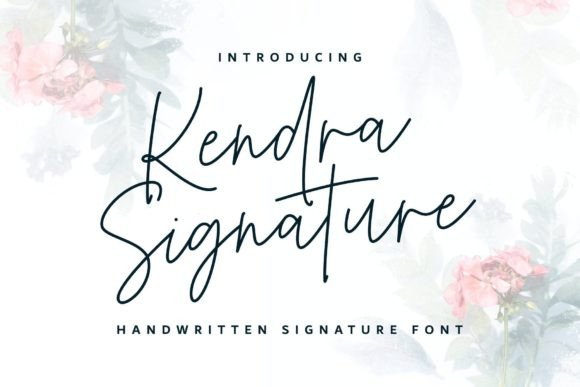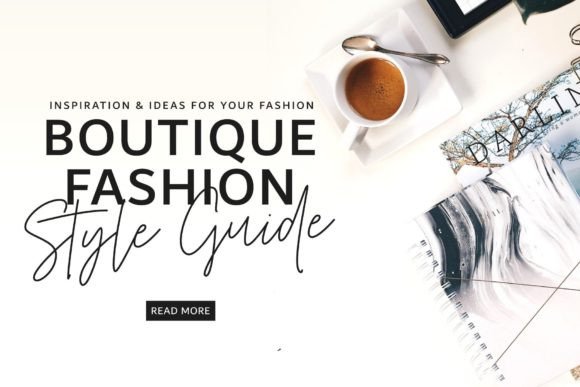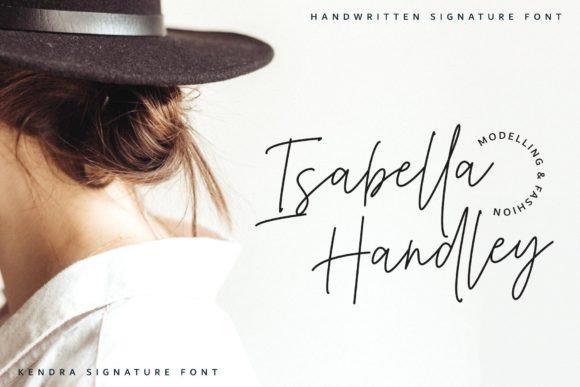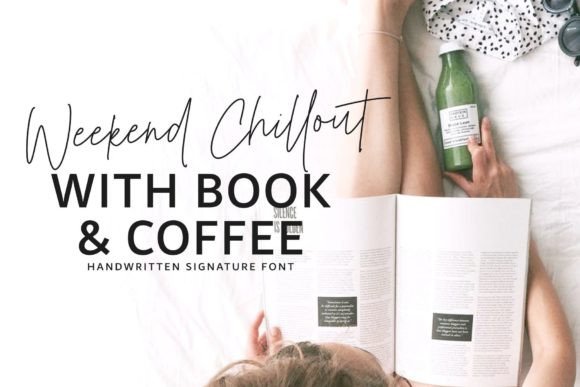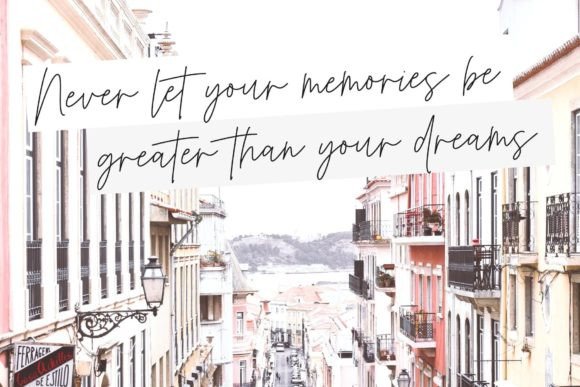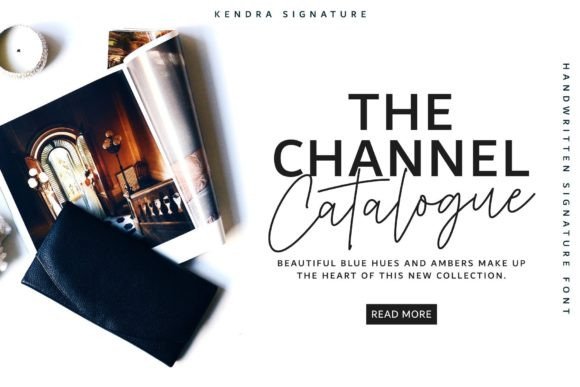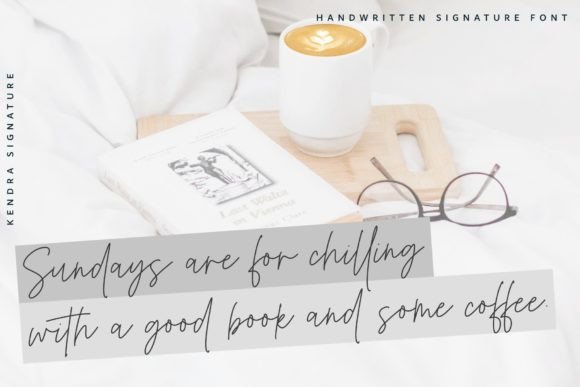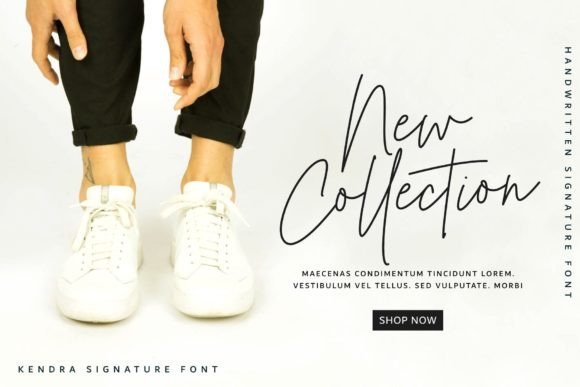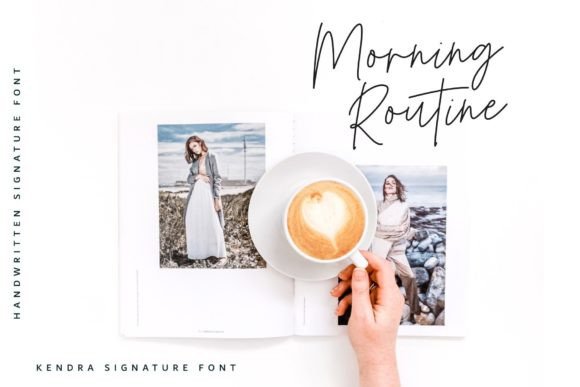
Kendra Signature Font
About Kendra Signature Font
Introducing Kendra Signature, a modern signature script font with a monoline design that adds a touch of sophistication to your designs. This versatile font is a perfect choice for a variety of applications, allowing you to enhance your projects with a contemporary and stylish signature touch. Kendra Signature can be utilized for websites, blog headers, personal branding, logos, social media posts, advertisements, movies, and various other design projects.
The modern and monoline design of Kendra Signature sets it apart, making it an ideal choice for contemporary design projects. Its clean and stylish appearance adds a touch of sophistication, ensuring that it complements a wide range of applications.
The versatility of Kendra Signature makes it suitable for diverse design purposes. Whether you’re working on a website, personal branding materials, or social media posts, Kendra Signature adapts seamlessly to different contexts, offering a consistent and stylish aesthetic.
Imagine using Kendra Signature for a personal logo, where its signature script adds a personalized and professional touch. In blog headers, it can create a stylish and inviting visual identity. For social media posts, Kendra Signature adds flair and elegance to your messages.
In the realm of branding, Kendra Signature stands out as a font that exudes modernity and sophistication. Its monoline script design makes it particularly suitable for projects where a clean and contemporary look is desired.
Kendra Signature is more than just a font; it’s a design tool that invites you to perfect your projects with a modern signature touch. Whether you’re designing for personal or professional purposes, Kendra Signature adds a level of elegance and style to your typographic choices. Elevate your designs with the sleek and contemporary aesthetic of Kendra Signature.